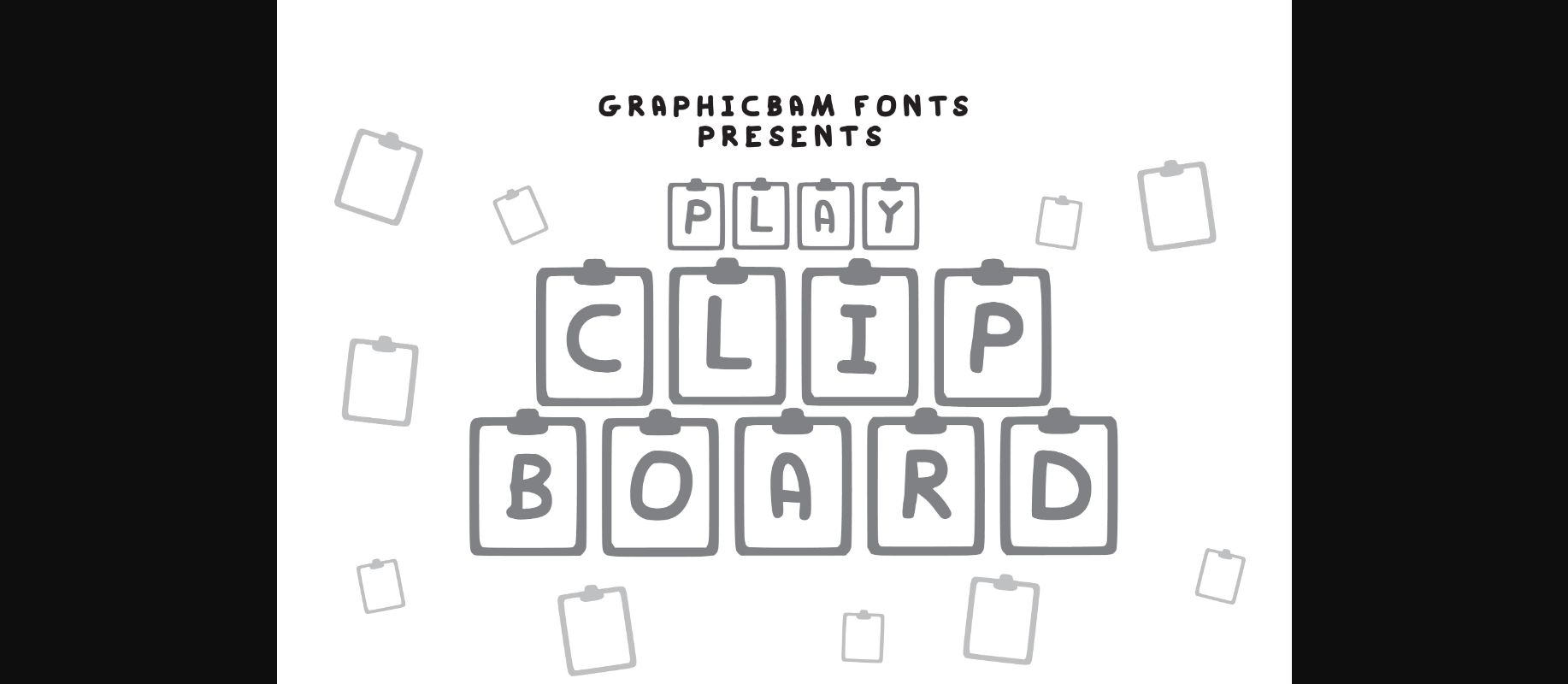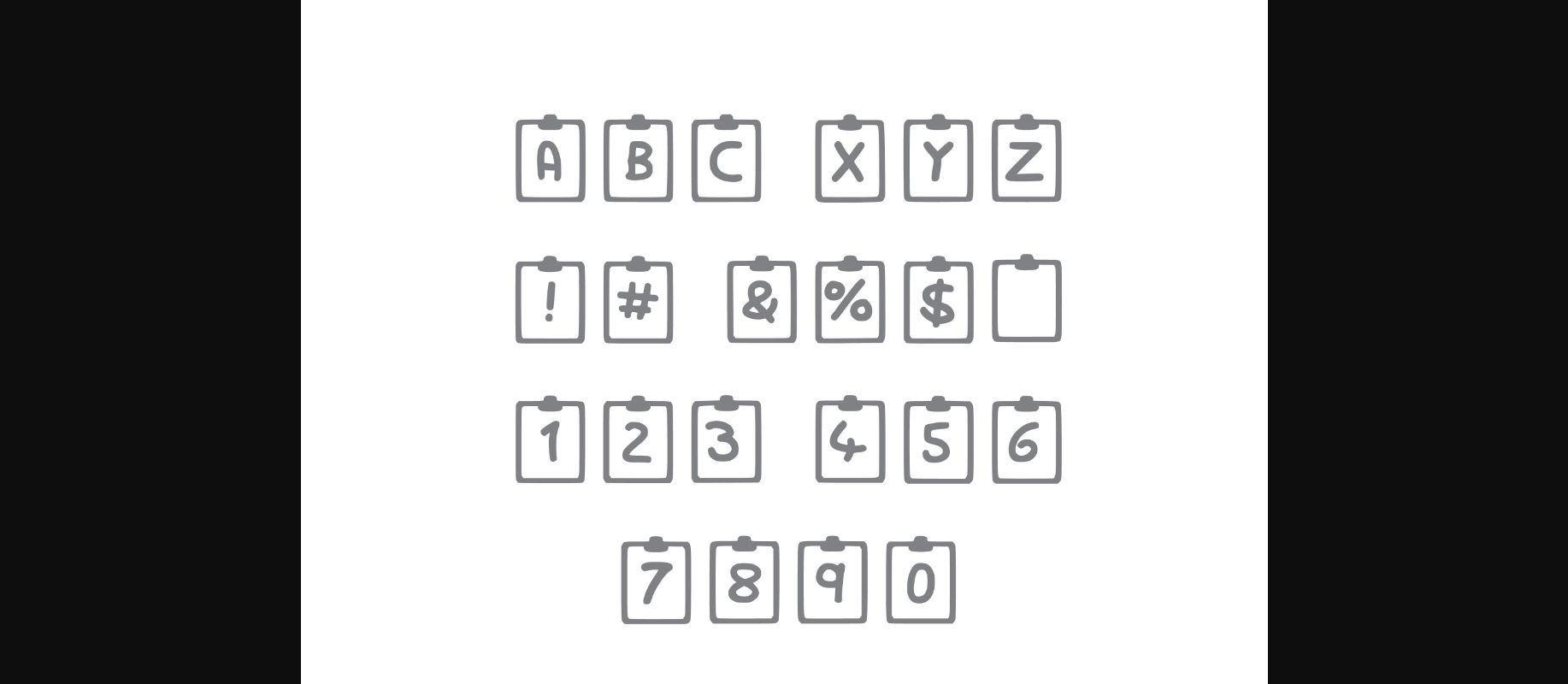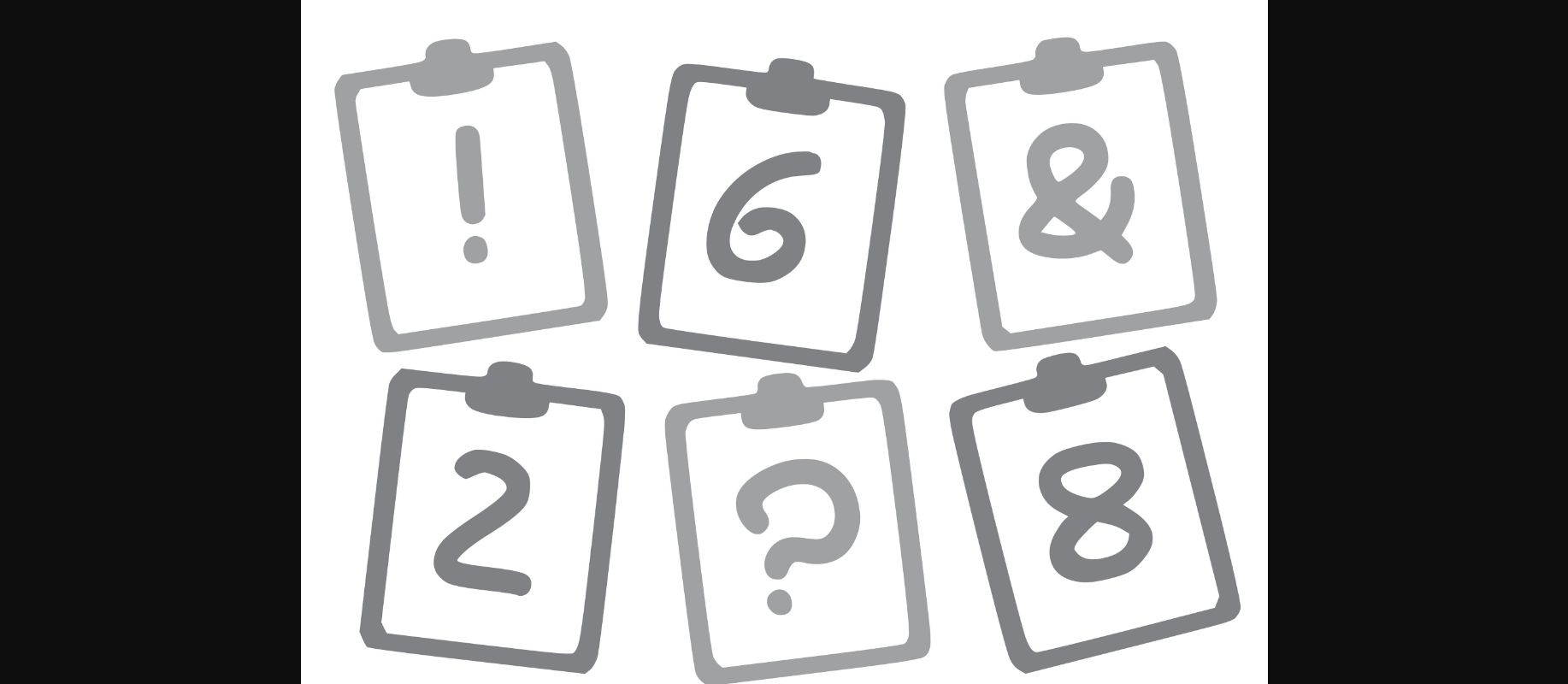
Play Clipboard Font
About Play Clipboard Font
Play Clipboard is a cool and neat decorative font. Whether you’re using it for crafts, digital design, presentations, or making greeting cards, this font has the potential to become your favorite go-to font, no matter the occasion!